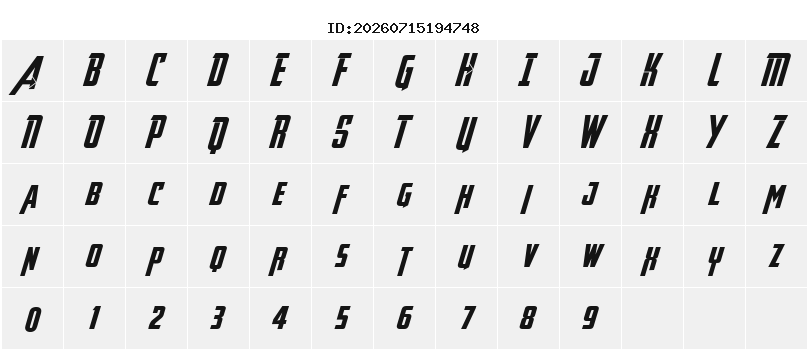
Avengeance Heroic Avenger Preview
• Font Name: Avengeance Heroic Avenger
• Full Font Name: Avengeance Heroic Avenger Italic
About Avengeance Heroic Avenger.ttf
Avengeance Heroic Avenger.ttf is a modern, elegant sans-serif font designed for ultimate readability and visual harmony. Perfect for branding, headlines, web design, and print materials.